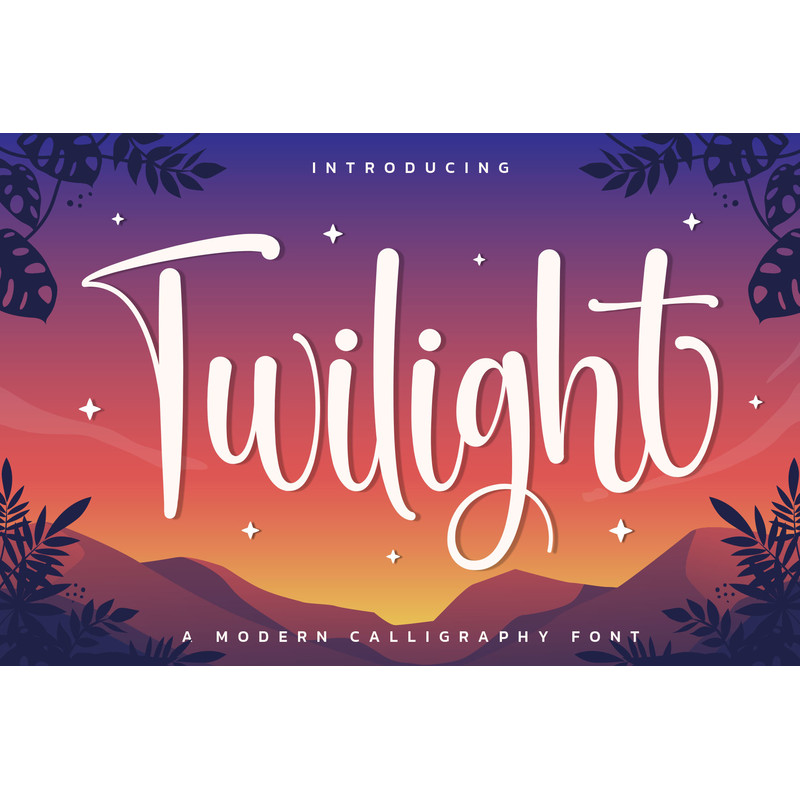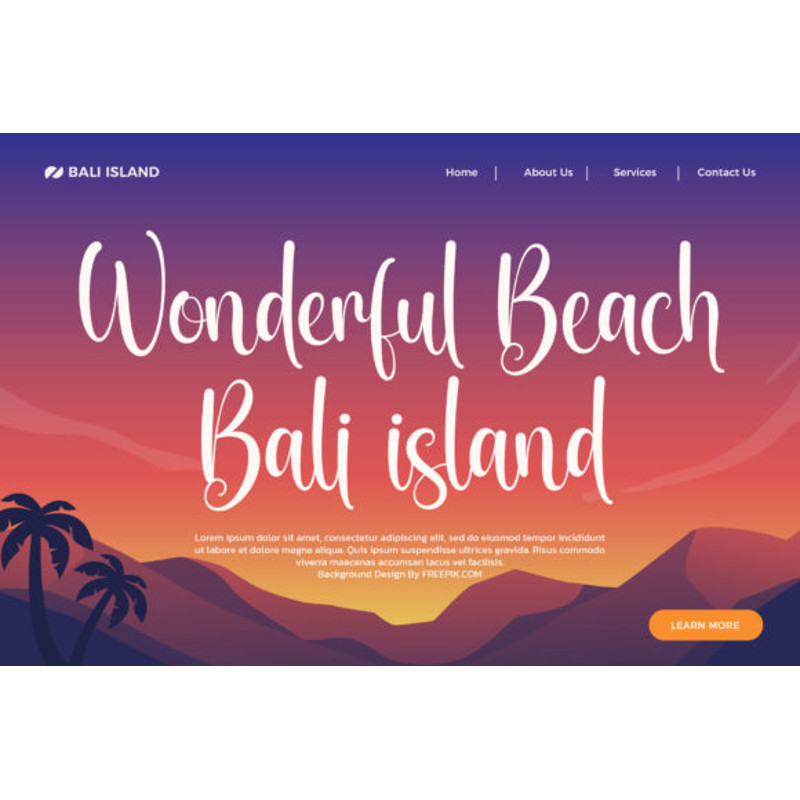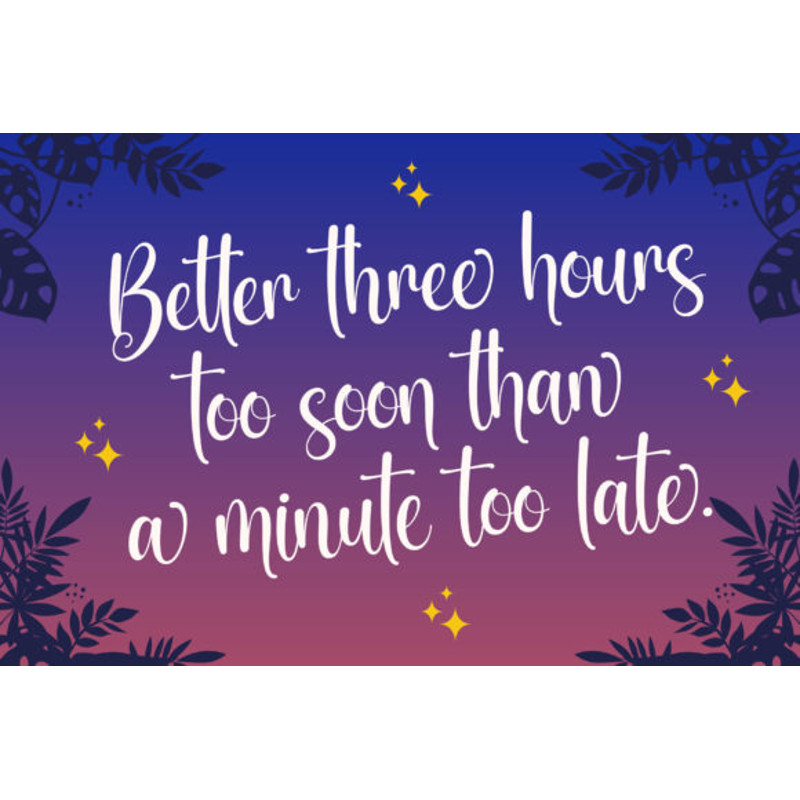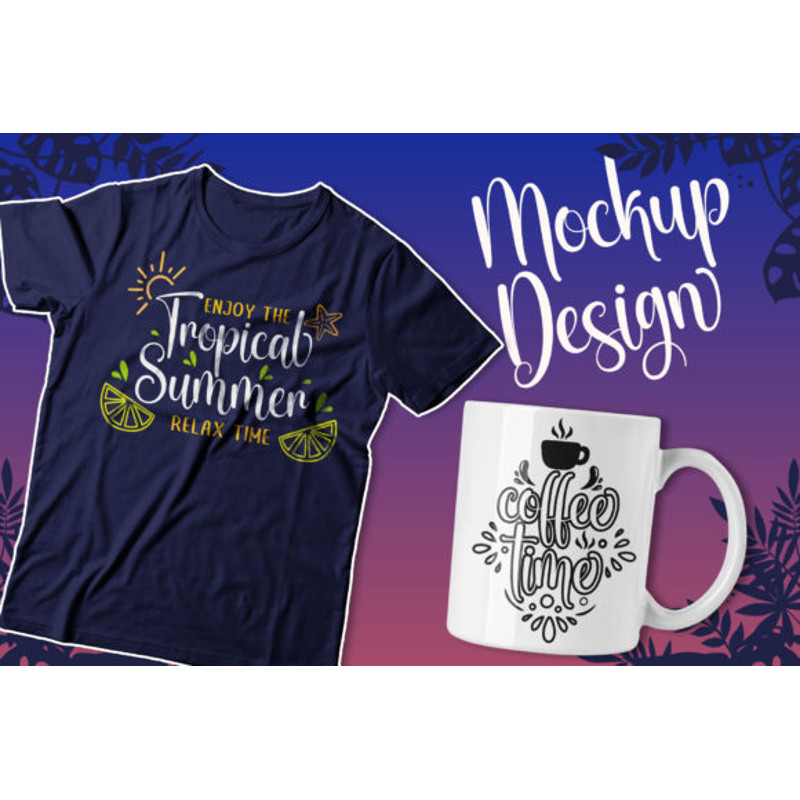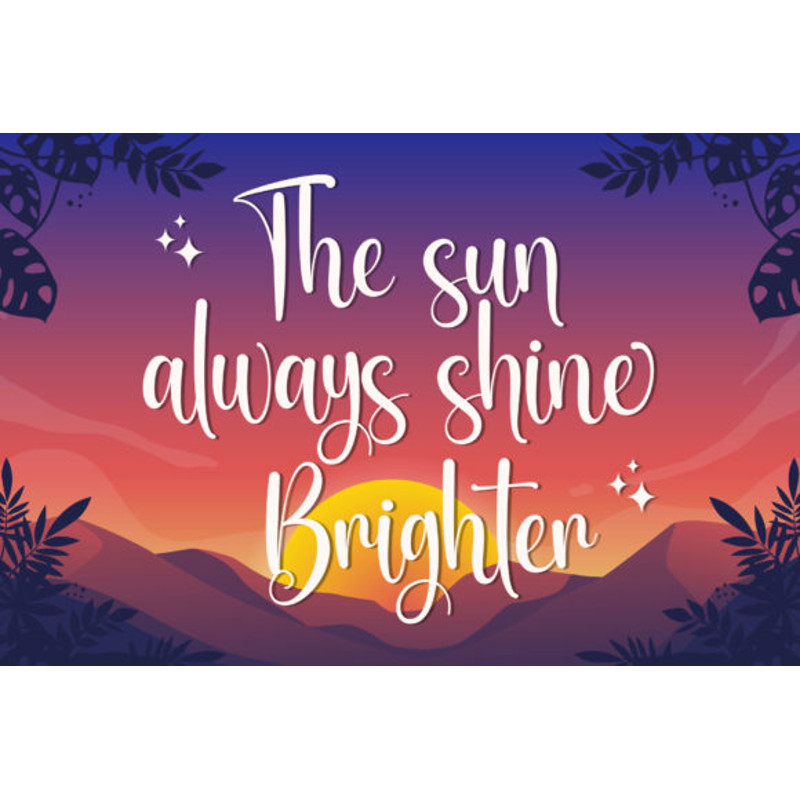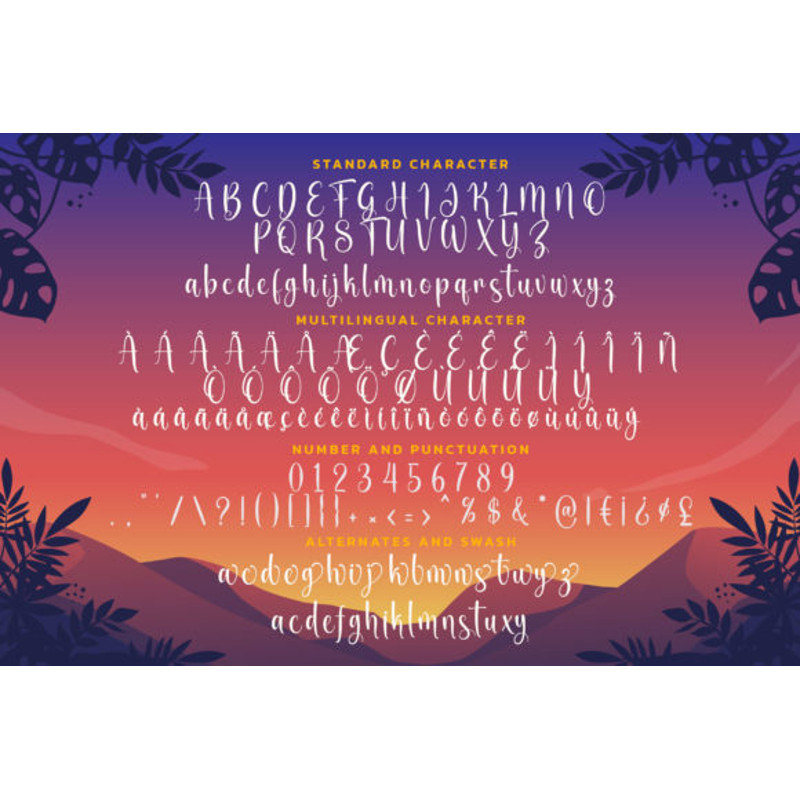
Twilight is a beautiful and elegant script calligraphy font. It has a classy, unique and modern look that can be used for logos, branding, invitations, stationery, wedding designs, greetings cards, social media posts, and much more!